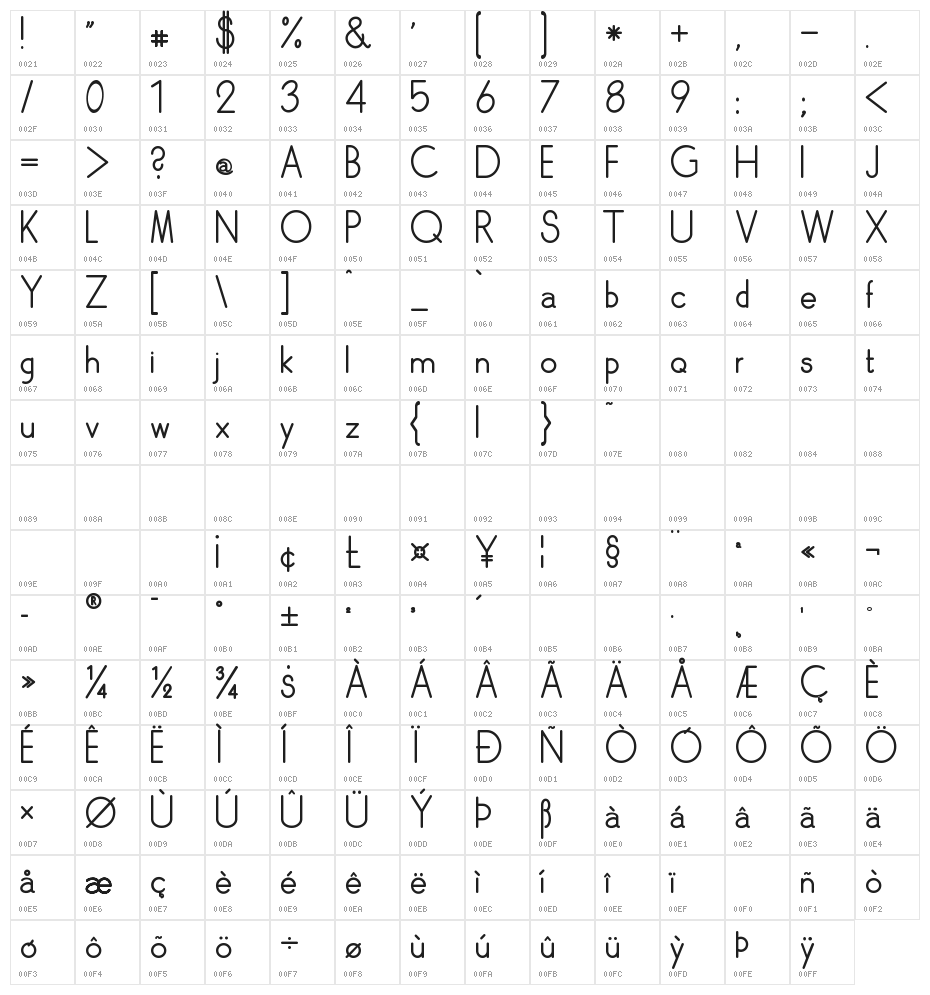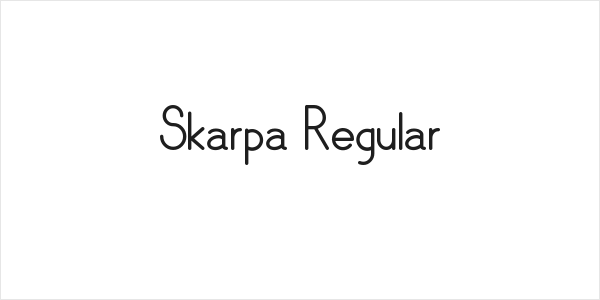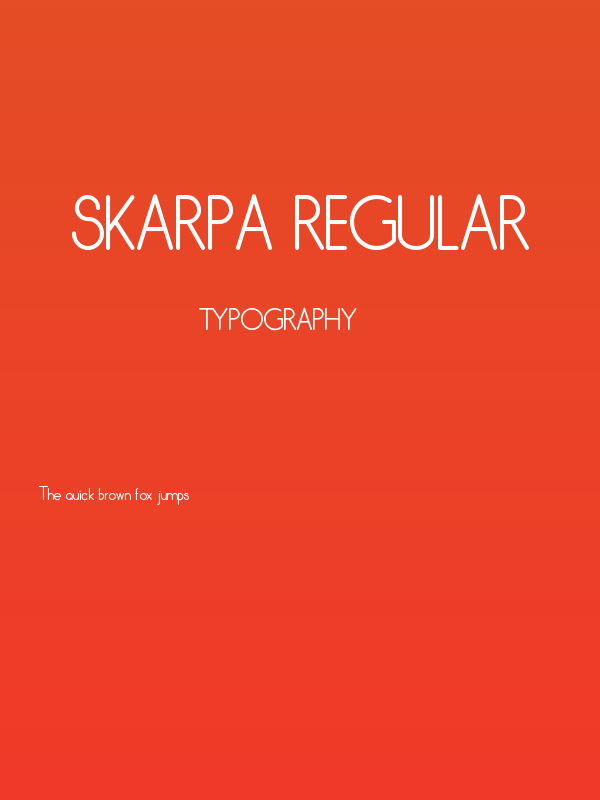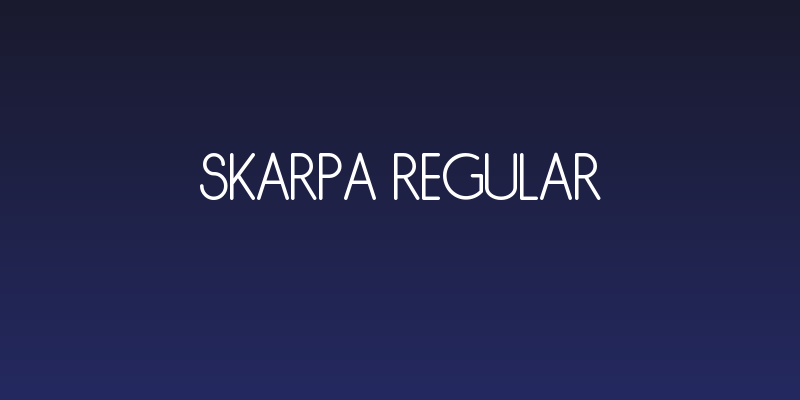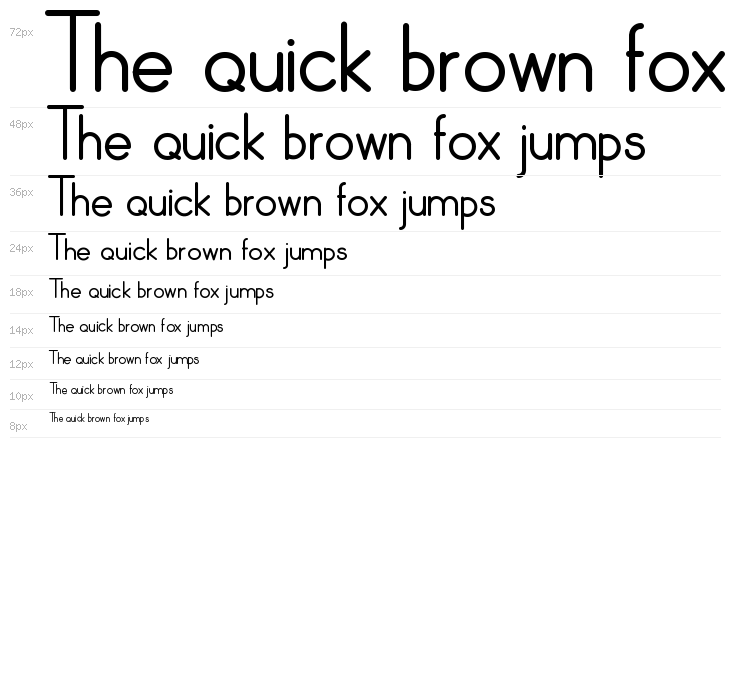
Skarpa Regular Font
Skarpa Regular Description
This font features a clean and minimalist design with a modern aesthetic. The characters are evenly spaced with a uniform stroke width, giving it a sleek and professional appearance. The uppercase letters are tall and slightly condensed, while the lowercase letters maintain a consistent height, contributing to its readability. The numerals are clear and distinct, matching the overall style of the alphabet. Special characters are designed with simplicity in mind, ensuring they blend seamlessly with the rest of the font. This font's simplicity and clarity make it versatile for various design applications.